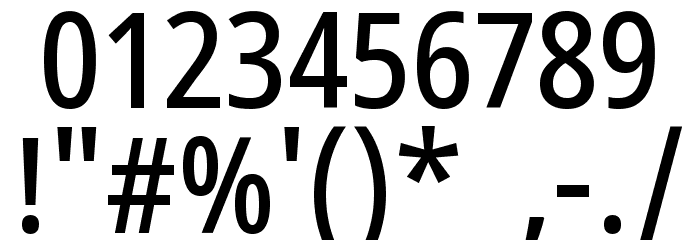
Noto Sans Sinhala UI Condensed Medium Font
This font is a clean and modern sans-serif typeface with a condensed structure, offering a medium weight that balances readability with space efficiency. The characters are uniformly designed, providing a consistent and professional appearance. The numerals are clear and distinct, making them suitable for both digital and print media. Special characters are well-defined, ensuring versatility across various applications. The overall design is straightforward, with minimal contrast in stroke thickness, which enhances its legibility across different sizes and resolutions.
A modern, condensed sans-serif font with medium weight and excellent readability.
- Proposed Projects: Ideal for user interfaces, digital content, mobile applications, and print media where space is limited.
- Use Case: Headlines, Body text, User Interfaces